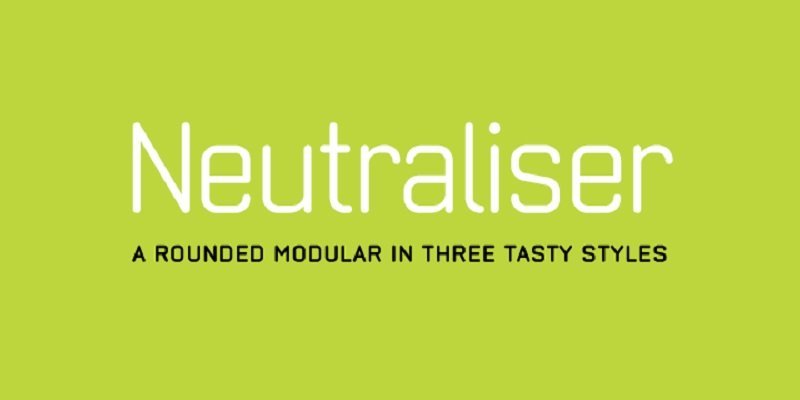
Neutraliser Sans Font
The Neutraliser family is a versatile collection of geometric-based fonts with 24 styles. The 6 Alternate styles are suitable for headlines and are complemented by the Sans and Serif styles suitable for small amounts text. The Caps styles allow for extra typographic variation within the family.
Neutraliser is a direct result of the designer’s initial exploration of typography and is uncompromising in its geometric nature. As the name suggests, the typeface celebrates the precision of the digital medium as a drawing tool in which the critical points that make up a letterform can be almost ‘plotted’ according to a grid-based logic.
Neutraliser Sans Font Family